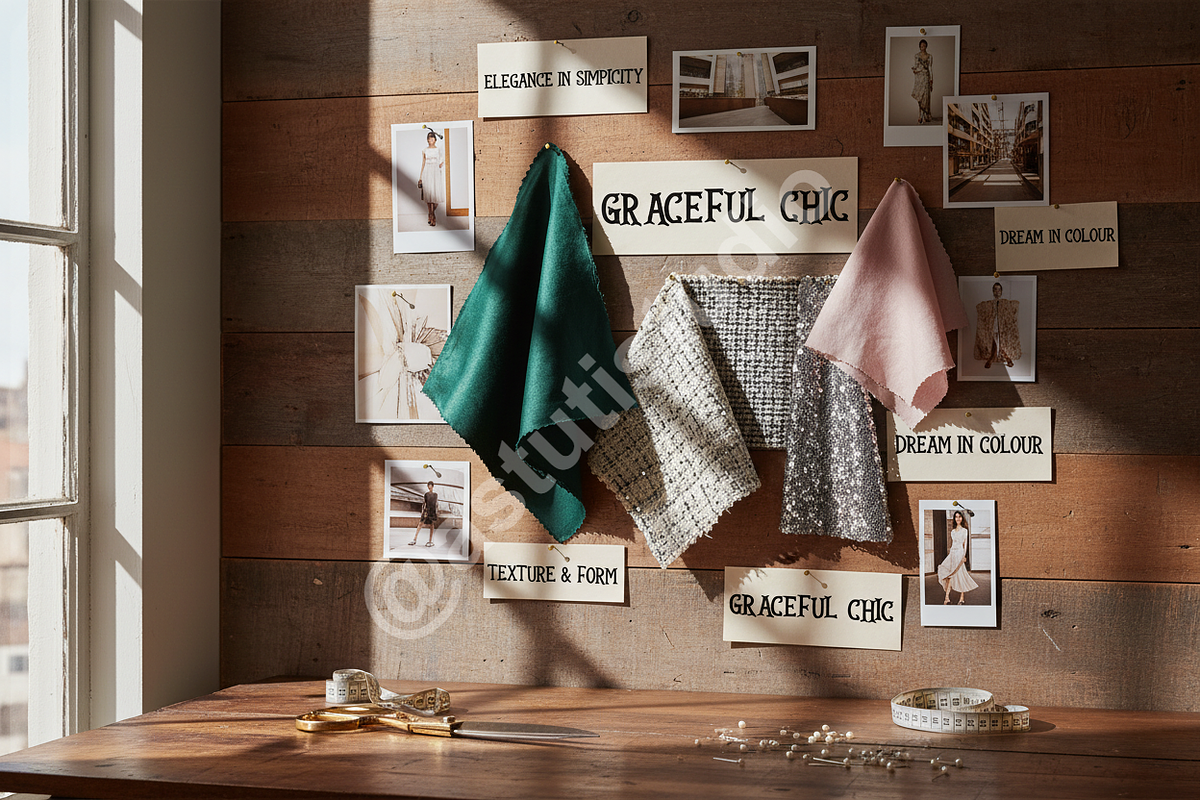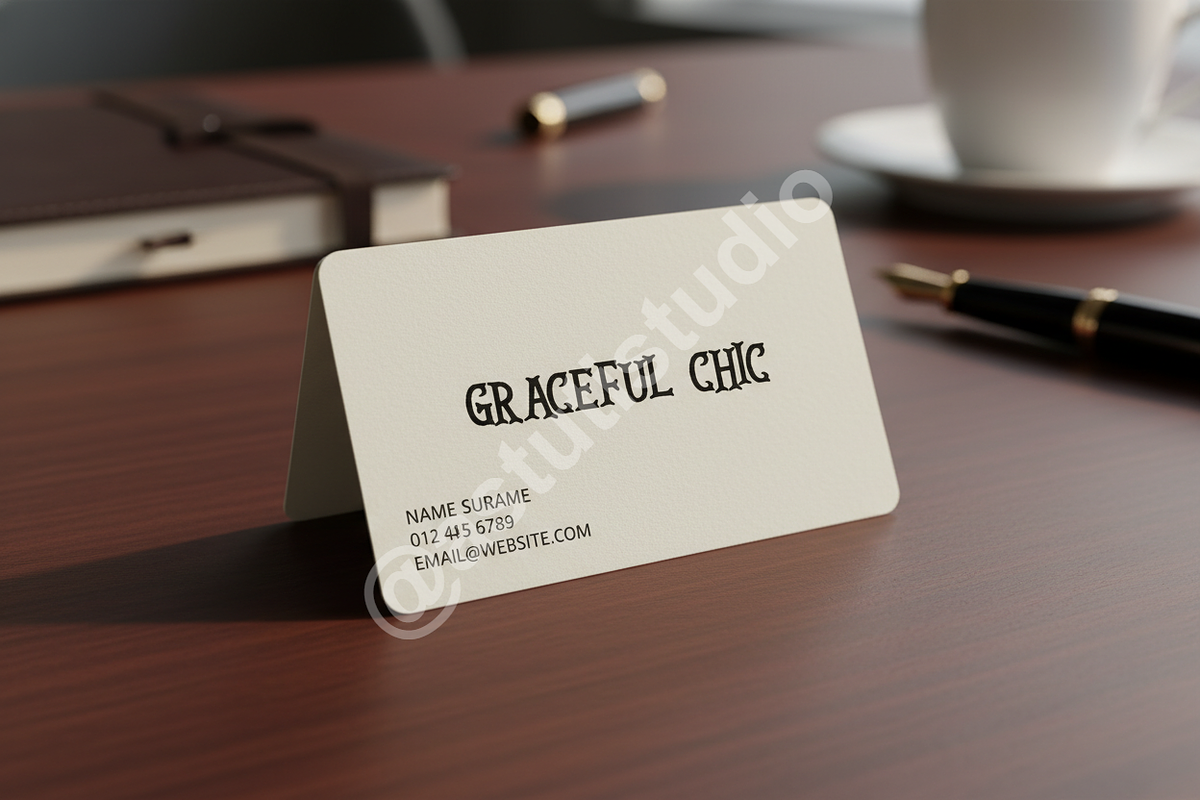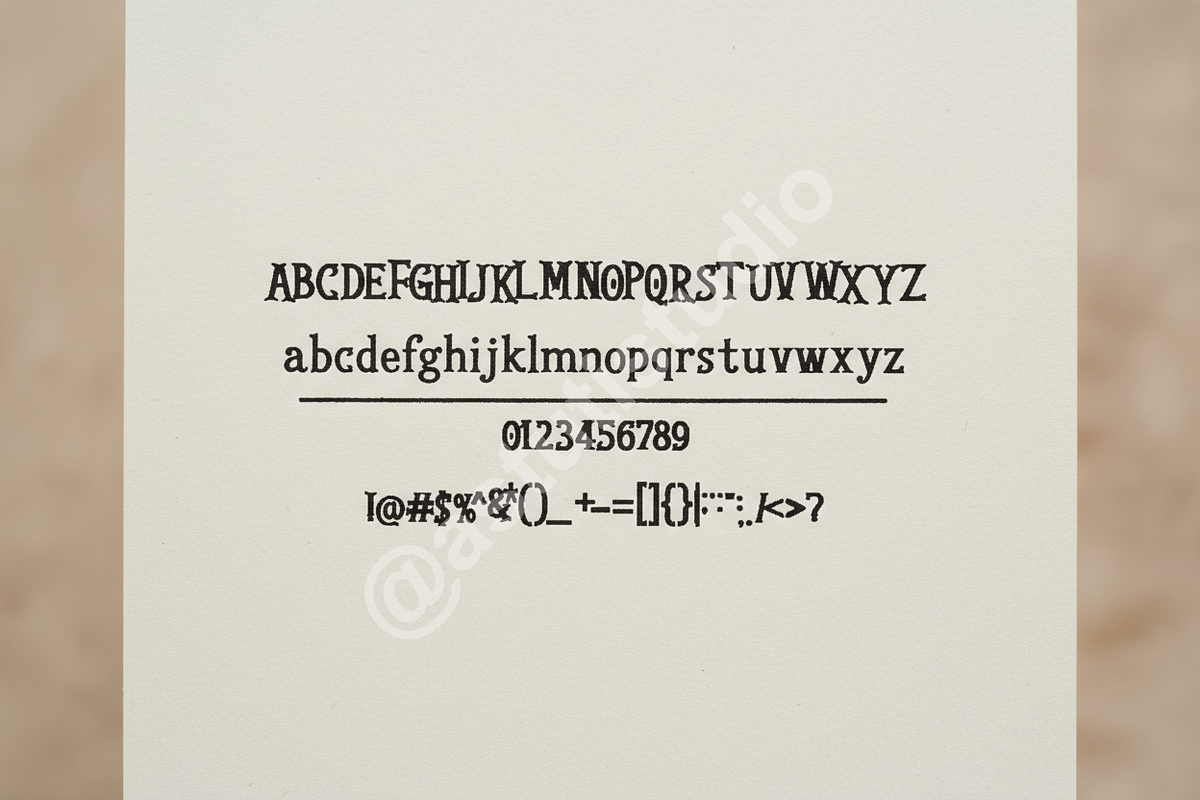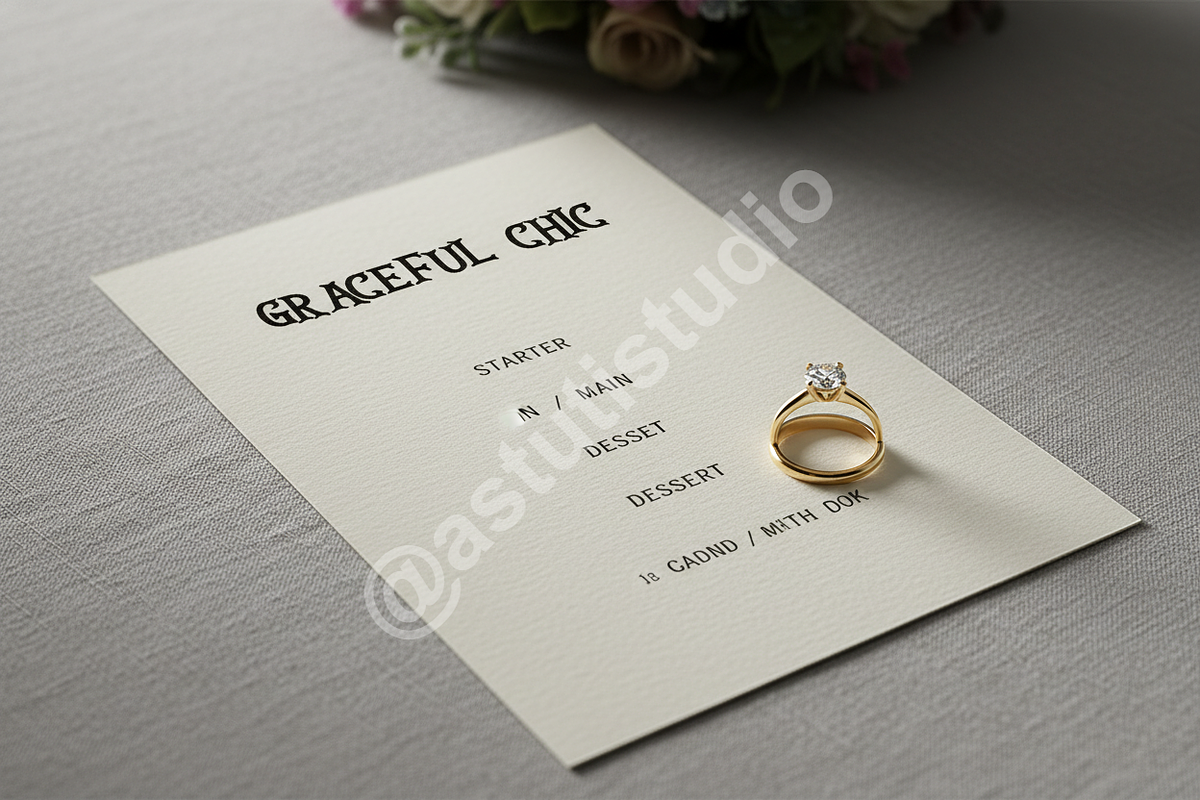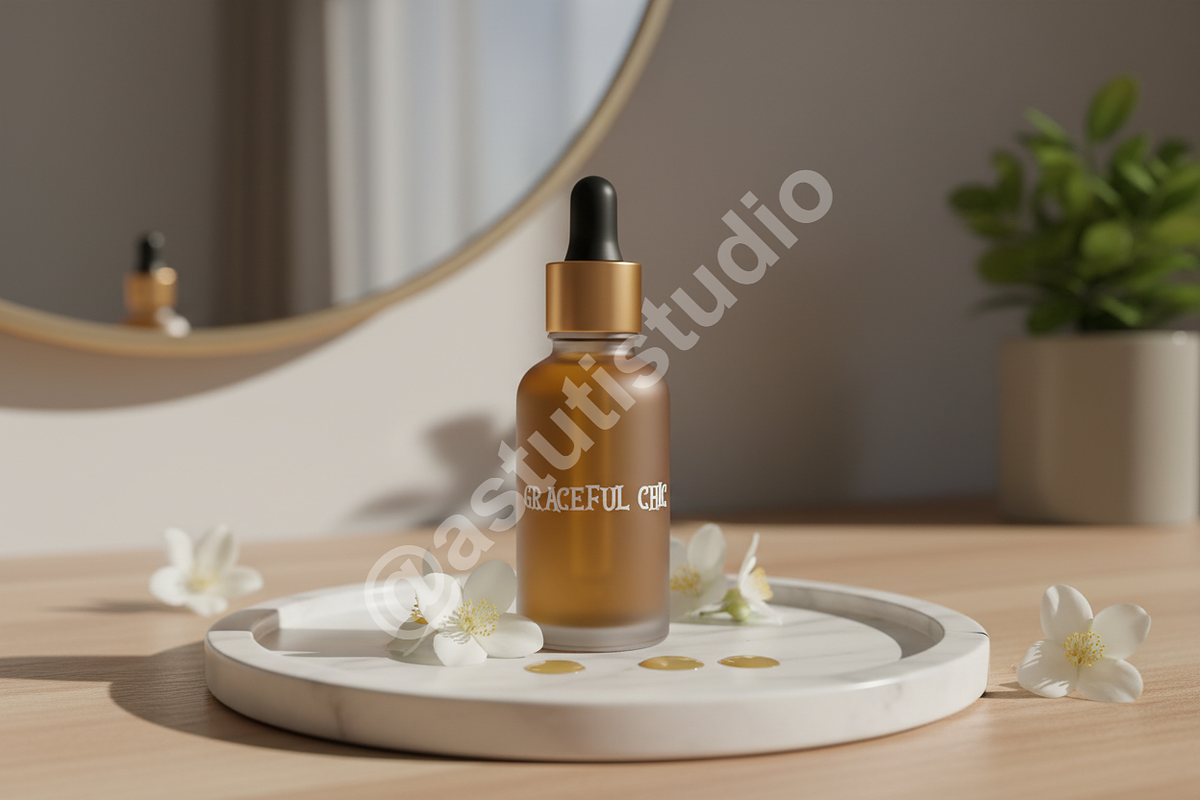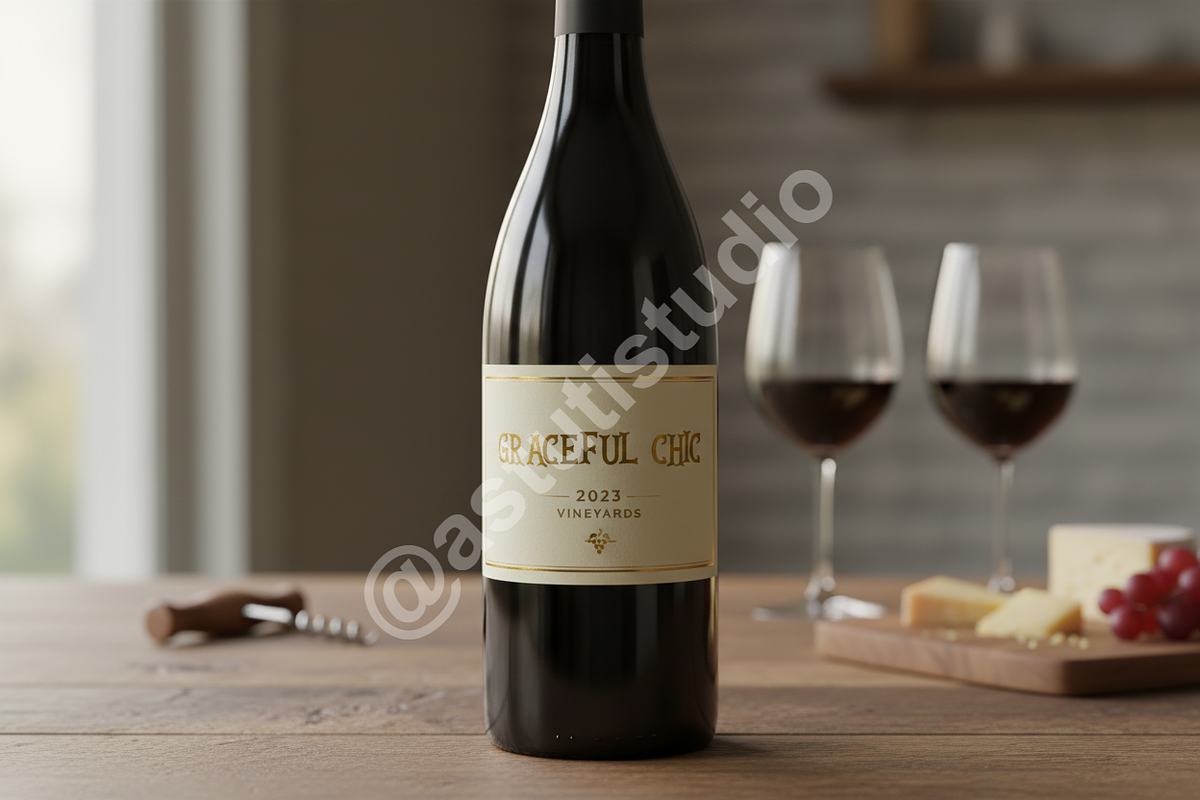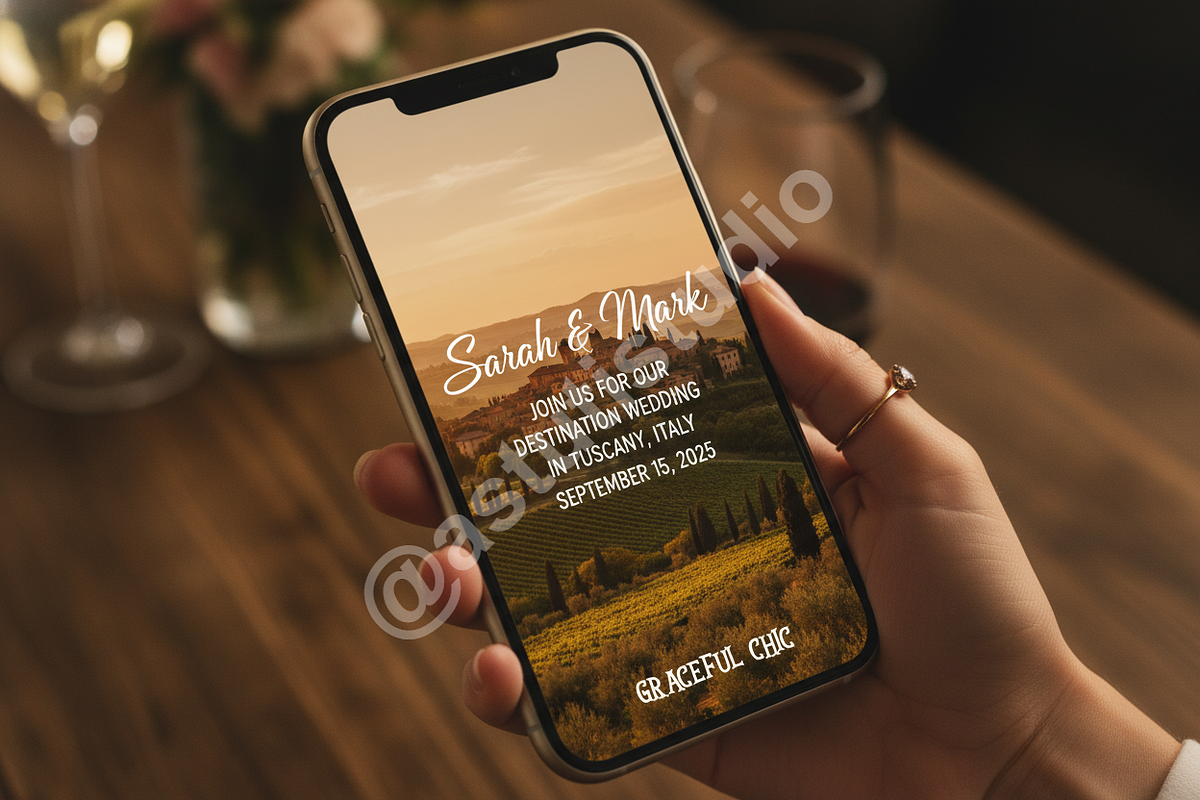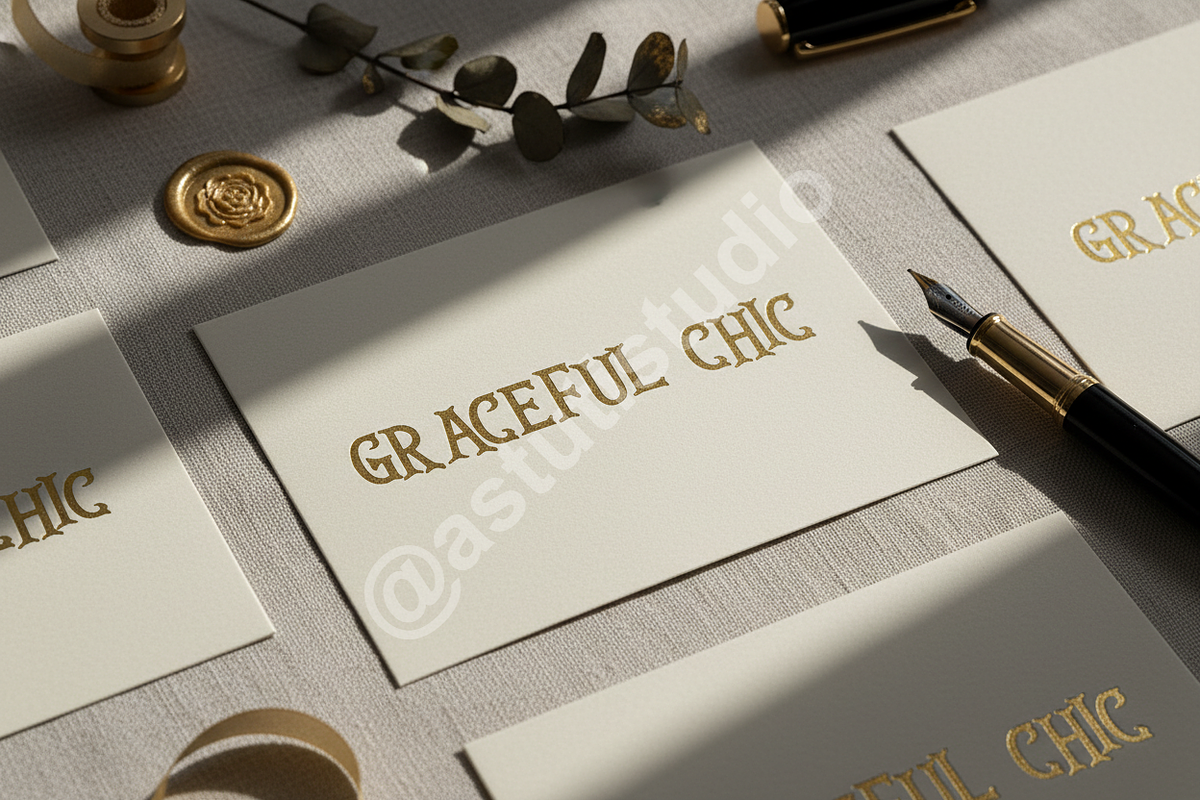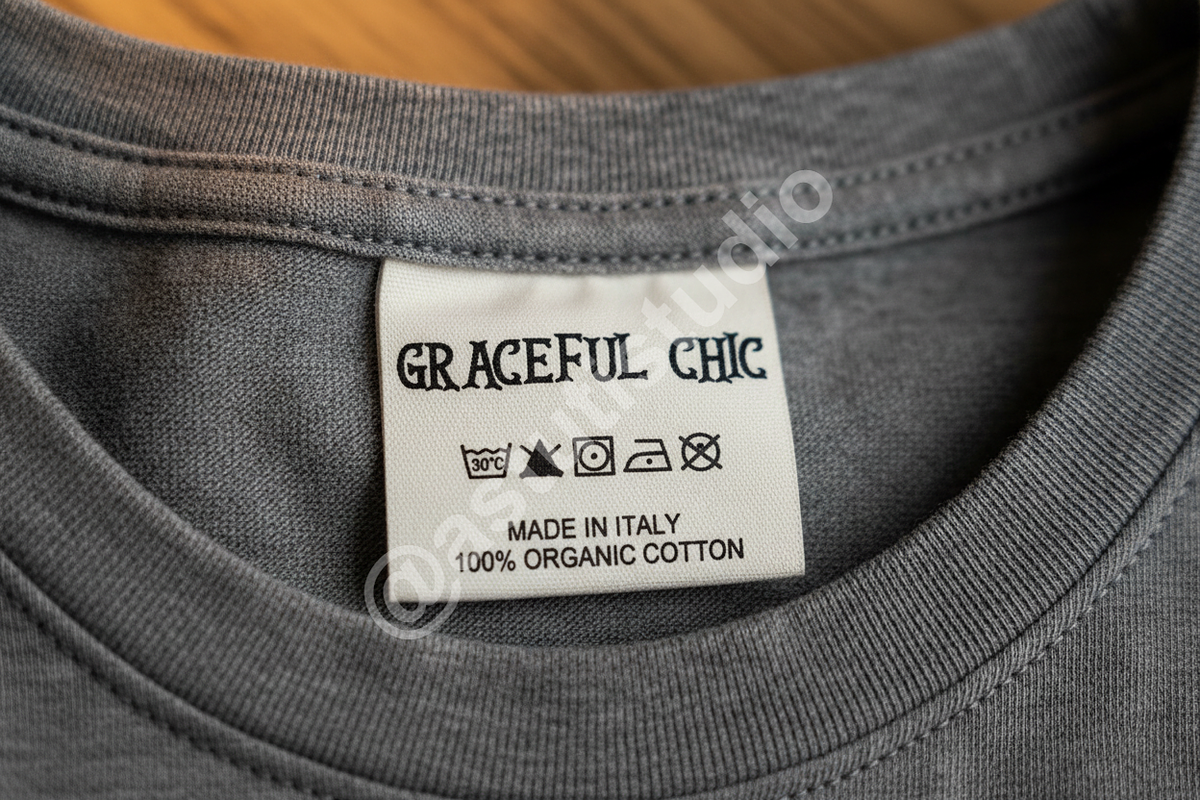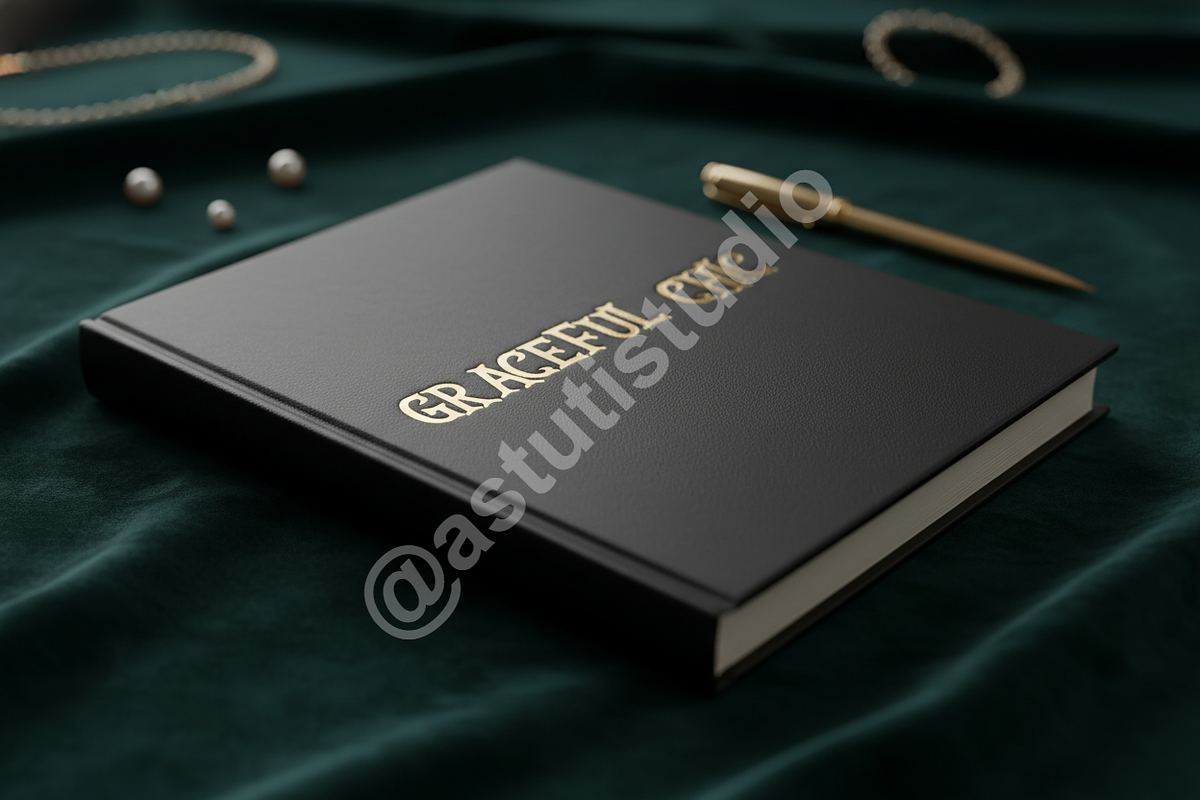
Cusi - Sophisticated Serif Font for
Introduction: Introducing Cusi, a beautifully refined serif typeface meticulously crafted to exude sophistication and timeless elegance. With its graceful curves and distinguished presence, Cusi is the quintessential choice for projects demanding a touch of luxury. Perfect for high-end branding, captivating editorial layouts, elegant social media content, and any design seeking an elevated aesthetic, Cusi brings a premium, professional finish to your creative work.
- Elegant & Timeless Design: A classic serif with a modern, sophisticated twist.
- Versatile Application: Ideal for headlines, body text, logos, and intricate designs.
- Multilingual Support: Extensive character set to cater to a global audience.
- Optimized Kerning & Spacing: Ensures readability and a polished appearance at any size.